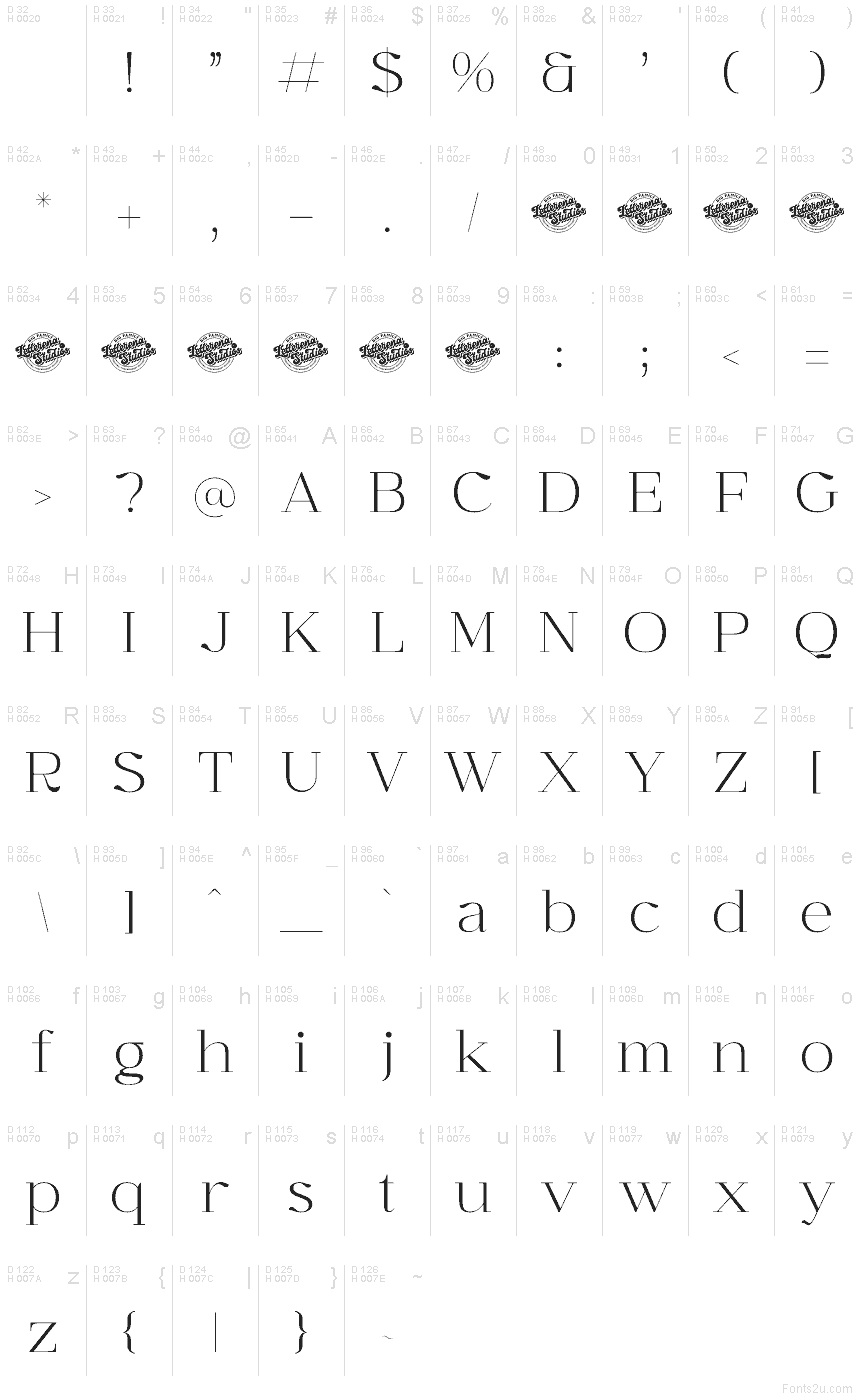
Graflows font by Letterena Studios is a free serif typeface. It stands out with razor‑thin hairlines that slip into inky, sculpted strokes, giving each letter a couture snap. The verticals feel crisp and assured, while the serifs land like fine cut paper—elegant but not brittle. That rare mix of drama and restraint lets headlines command attention without shouting.
Using Graflows, you’ll elevate luxury branding, fashion editorials, beauty packaging, magazine covers, wedding invitations, boutique logos, and perfume posters. This free font’s tall rhythm and silky contrast create a polished, modern classic that photographs beautifully and prints clean. For balance, pair it with a neutral sans and add a touch of letter‑spacing at large sizes.